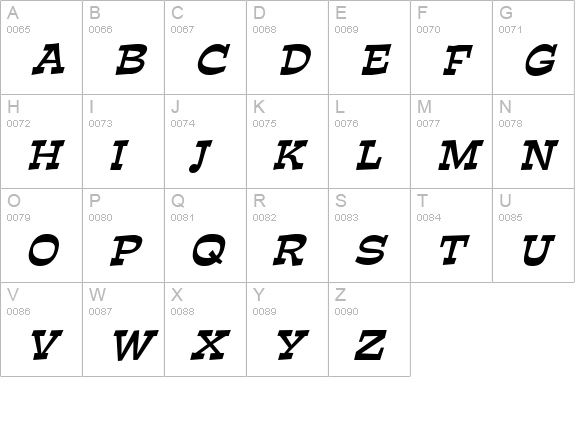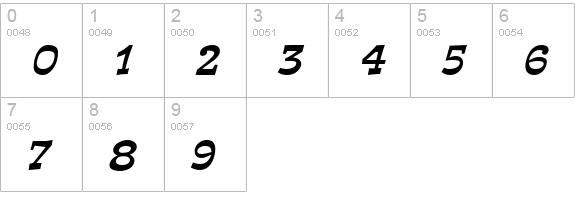
Expose Italic is a distinctive, italic variant in the Expose typeface family \xE2\x80\x94 well suited to design and typography projects.
Introducing Expose Italic font, a sleek and modern typeface that effortlessly combines sophistication with a touch of elegance. The italicized design of Expose adds a sense of style and flair to any project, making it perfect for both professional and creative endeavors. Each letter is crafted with precision, ensuring a clean and polished appearance on any medium. What's even better is that Expose Italic font is available for free download at FontsMarket.com. With just a few clicks, you can elevate your designs with this versatile and eye-catching typeface. Whether you're working on a branding project, marketing materials, or personal projects, Expose Italic font is sure to make a lasting impression. Don't miss out on the opportunity to enhance your work with this stunning font - download it today and let your creativity shine!